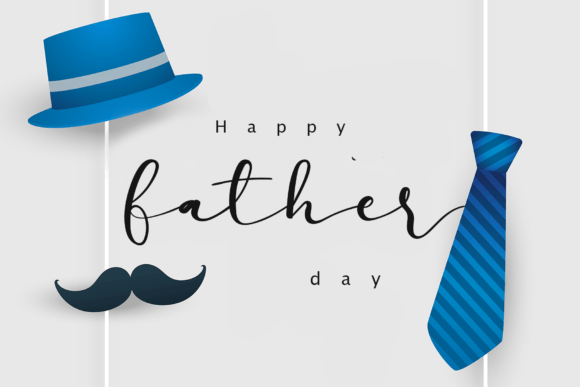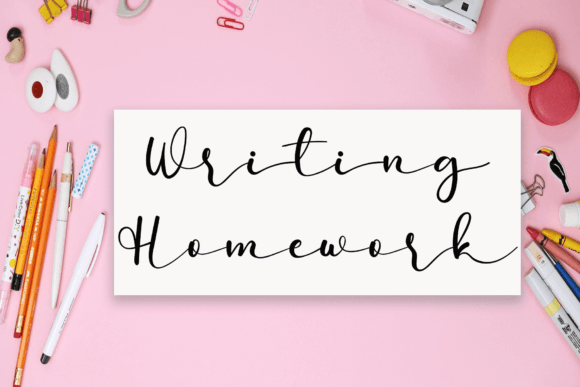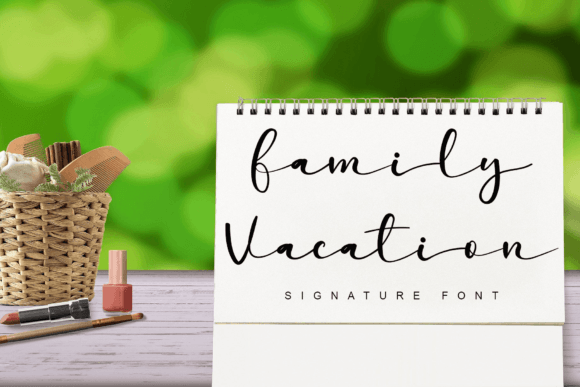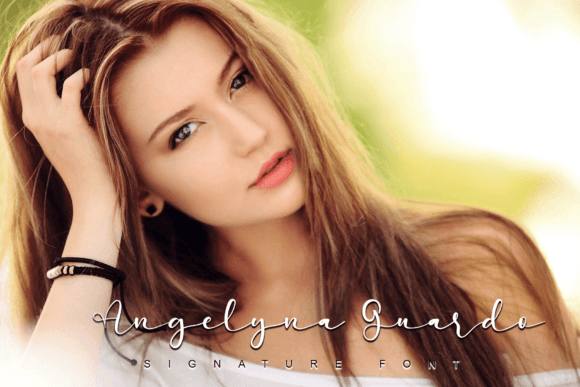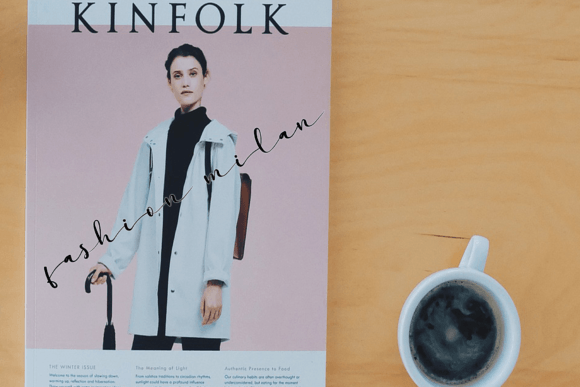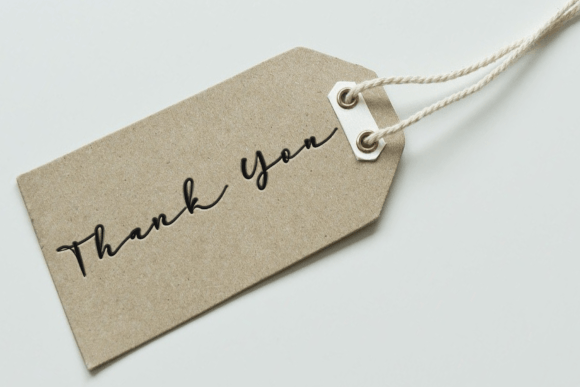
Father Font
About Father Font
Father emerges as a magical handwritten font, meticulously crafted to infuse a touch of elegance into your designs. Whether you’re in search of fonts to enhance your Instagram aesthetics or seeking calligraphy scripts for engaging DIY projects, this font stands as the enchanting element that can transform any creative idea into a genuine piece of art.
The magical allure of Father lies in its carefully designed handwritten strokes, adding a unique and personalized elegance to your designs. This font is a versatile choice, suitable for a variety of creative applications, ranging from captivating social media posts to heartfelt DIY projects.
Father seamlessly adapts to diverse design contexts, making it an excellent choice for a wide range of projects. Whether you’re crafting meaningful messages, designing invitations, or adding a touch of sophistication to your Instagram feed, this font becomes a transformative tool that elevates your creative expression with its magical touch.
Beyond being a font, Father serves as a bridge between creativity and elegance. Its magical quality lies in its ability to turn ordinary design ideas into genuine works of art. The handwritten script not only adds a touch of sophistication but also infuses warmth and authenticity into your creations, making it a delightful companion for those seeking to make a visual impact with grace.
In conclusion, embrace the magic of Father as it graces your designs with elegance and charm. Whether you’re an Instagram enthusiast, a DIY creator, or a professional designer, let this font be the catalyst that turns your creative ideas into true masterpieces. Create with confidence, and let Father be the magical touch that makes your designs stand out as genuine works of art.